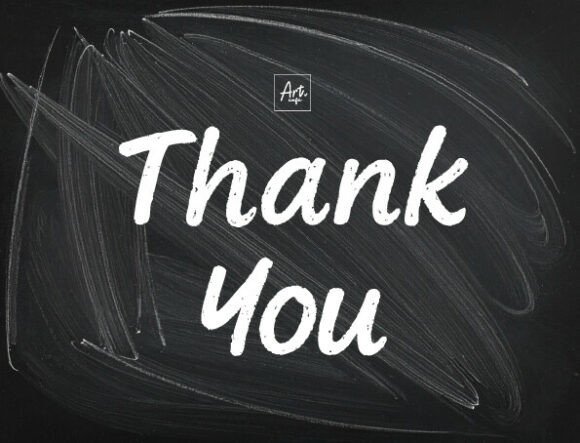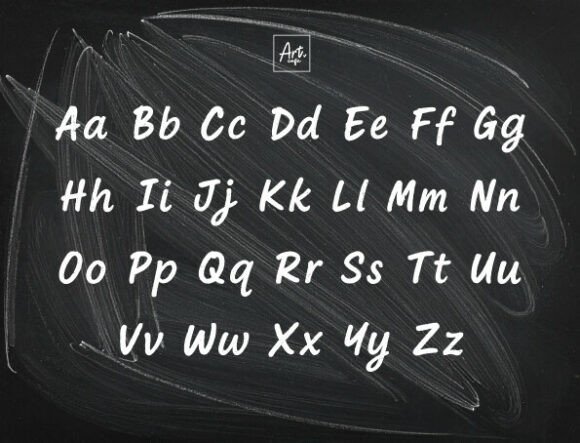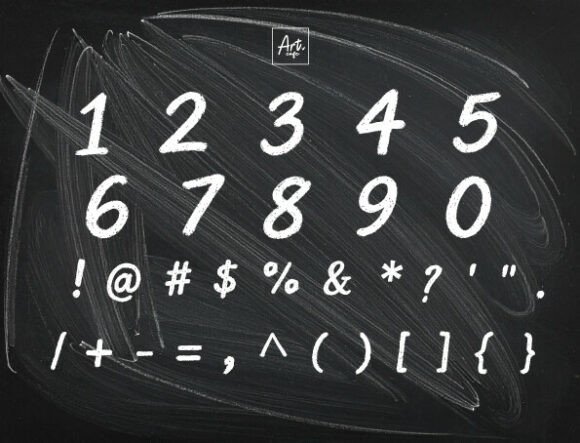
Unlock the Charm of the Classroom with Chalky Teacher Font
Do you remember the joy of standing at the front of the classroom, chalk in hand, as you began to write the day’s lesson on the blackboard? The scratchy sound of the chalk on the board, the smell of the dusty chalk, and the feeling of creating something from scratch – it’s a sensory experience that never gets old. For designers and educators alike, capturing that nostalgic classroom vibe is a dream come true.
Enter Chalky Teacher Font, a delightful handwriting font that perfectly recreates the look and feel of real chalk on a blackboard. This charming font is more than just a design element – it’s a way to bring warmth and personality to your projects. Whether you’re creating educational resources, classroom décor, or kids’ crafts, Chalky Teacher Font adds a friendly and engaging touch that’s sure to delight both students and teachers.
Chalky Teacher Font Key Features
- Font Style: A distressed, handwritten font with a chalkboard feel, suitable for educational and creative projects.
- Unique Characteristics: Chalky Teacher Font features subtle texture and imperfections, giving it a unique, hand-drawn look.
Chalky Teacher Font Review
Overall, I think the “Chalky Teacher Font” has a lot going for it. The font’s distressed, chalkboard aesthetic ✨ instantly evokes a sense of nostalgia and warmth, which could be perfect for educational or creative projects.
- The font’s imperfections and irregularities ✨ add a unique character that can make it stand out in designs.
- The font’s flexibility ✨ allows it to be used in a wide range of contexts, from posters and flyers to digital interfaces and publications.
- The font’s distressed aesthetic ⚠️ can sometimes make it difficult to read, especially at smaller font sizes.
- The font’s lack of consistency ⚠️ in terms of spacing and letterform can make it challenging to use in certain situations.
- The font’s reliance on digital tools ⚠️ to achieve its distressed effect can limit its use in traditional design contexts.
Overall, I think the “Chalky Teacher Font” is a solid choice for designers looking for a unique and expressive font. While it may have some limitations, its strengths and flexibility make it a great addition to any design library.
To make the most of the Chalky Teacher Font, consider the following tips:
- Use it to create a vintage or distressed look.
- Pair it with other fonts for a unique combination.
- Experiment with different font sizes and colors.
The Chalky Teacher Font is commonly used for:
- Creating educational materials, such as lesson plans and worksheets.
- Designing school-themed graphics and logos.
- Adding a vintage touch to educational presentations and documents.